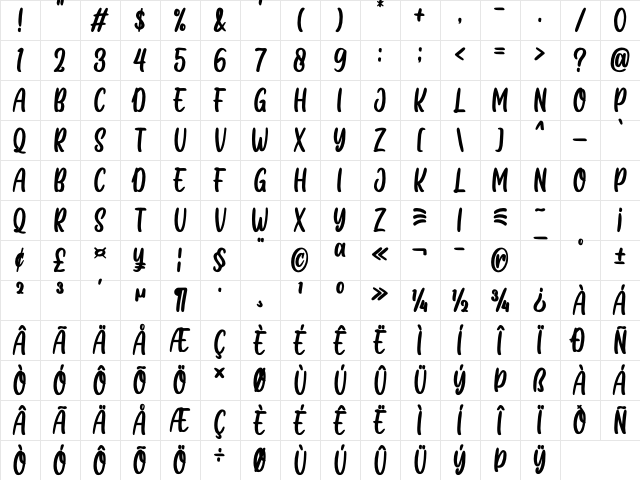
CITCAT Regular
Designer: Siti Nurjanah
Design Context for CITCAT
CITCAT is a composed and adaptable typeface that performs quietly and consistently across a wide range of design contexts.